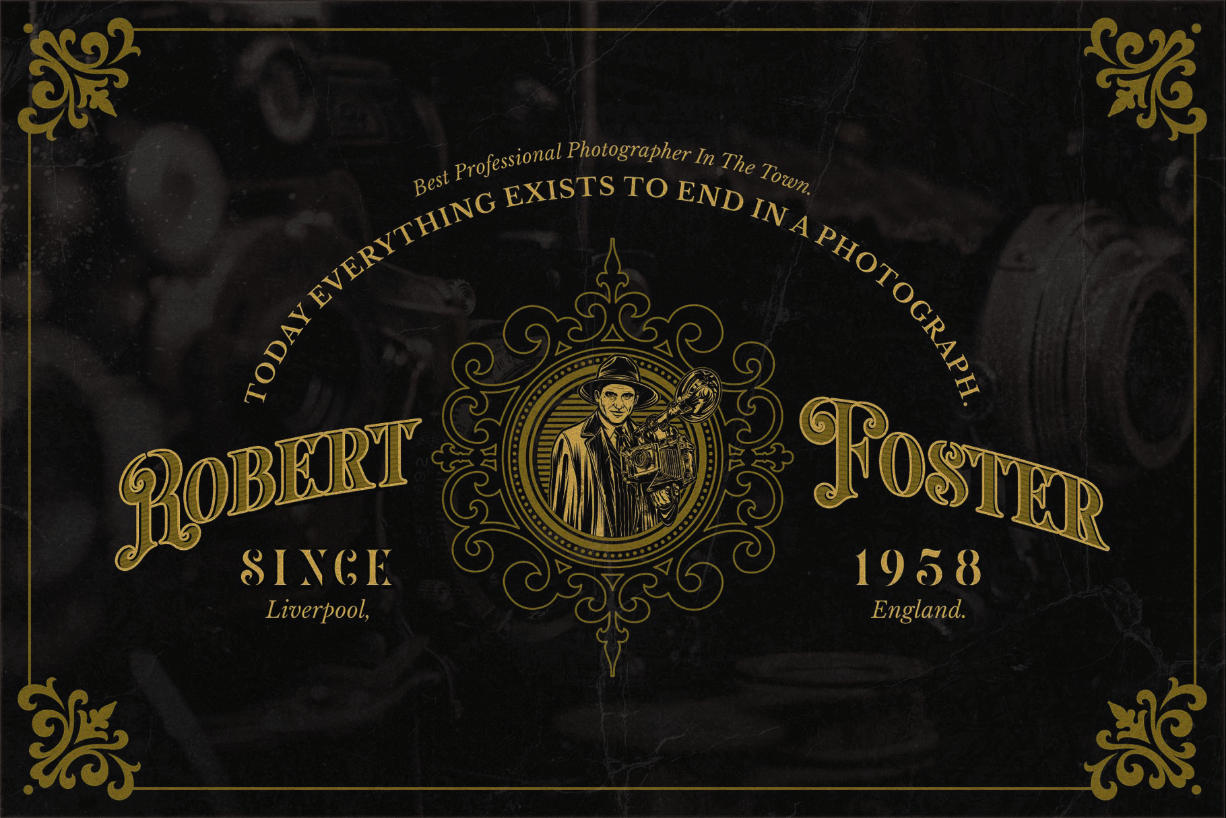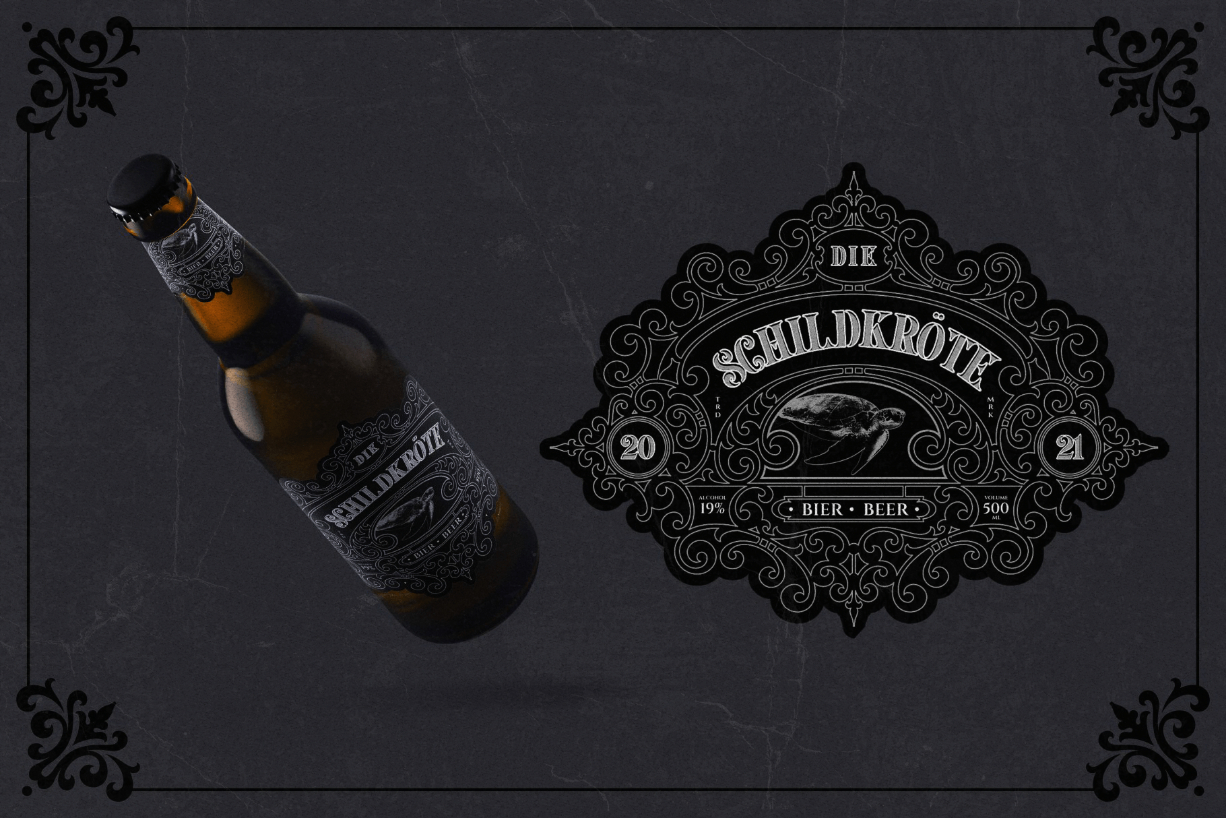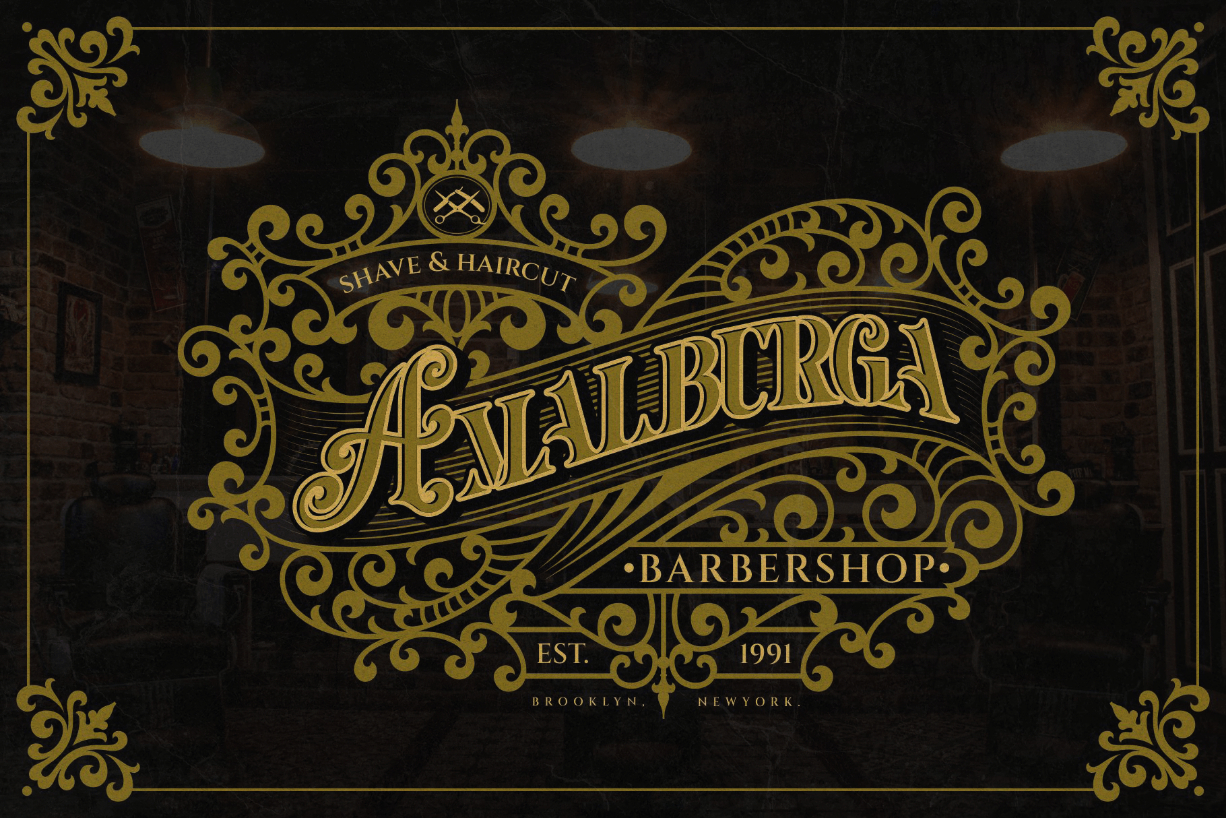
About Luazerva Font
Luazerva is a blackletter font that is quite unique because the base is a classic serif font in the Victorian genre. It is unique because this font has a characteristic that is broken and loses the thin body of the letter itself, so besides being unique this font also has rather difficult readability. So this font is really a typeface that is not suitable for making long text.